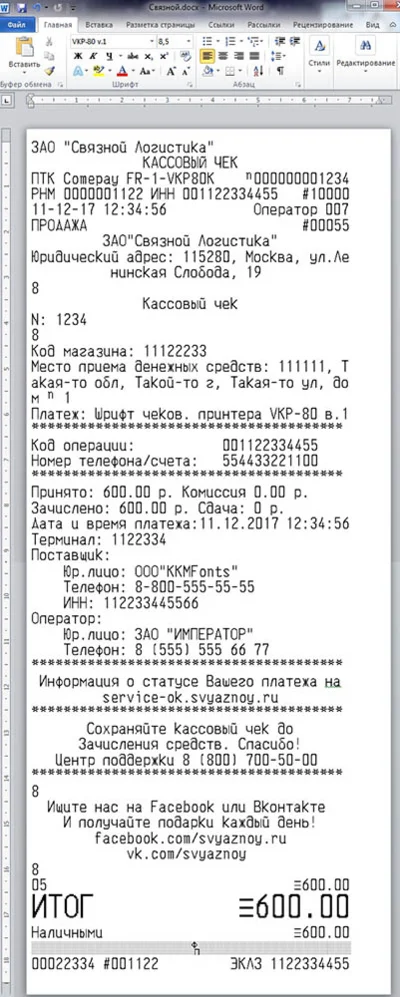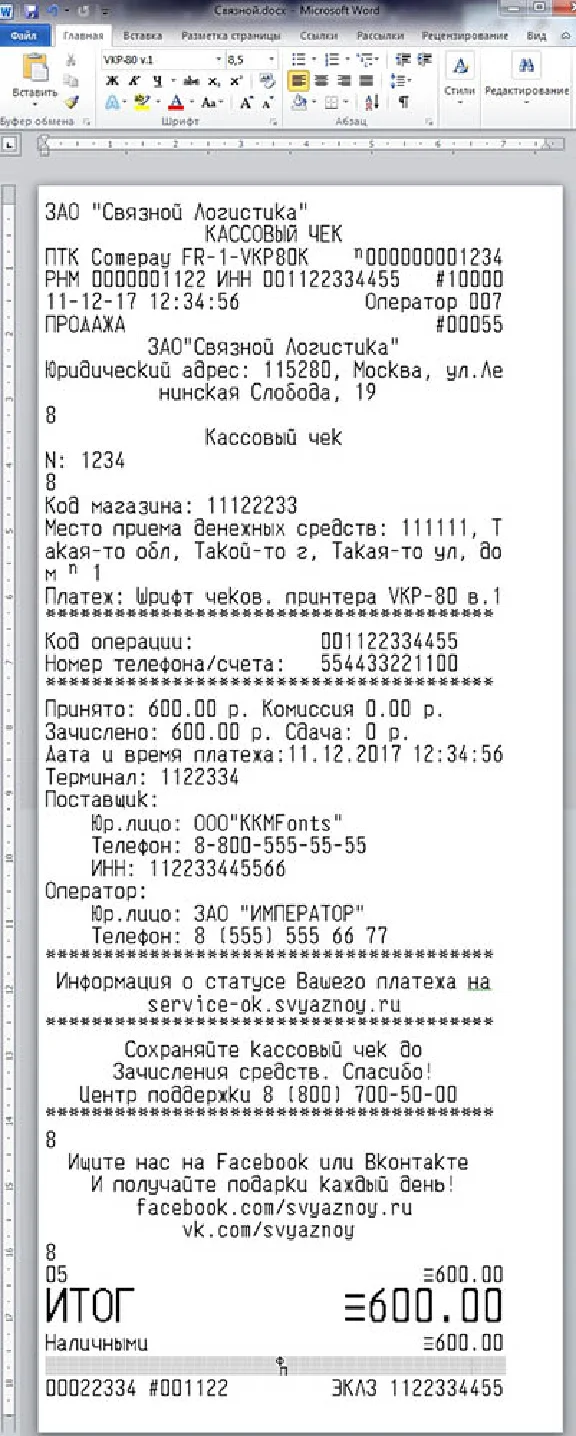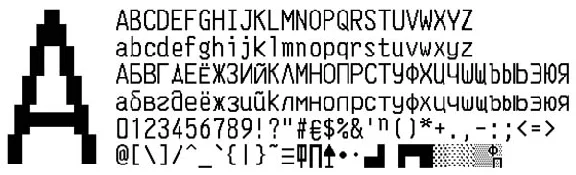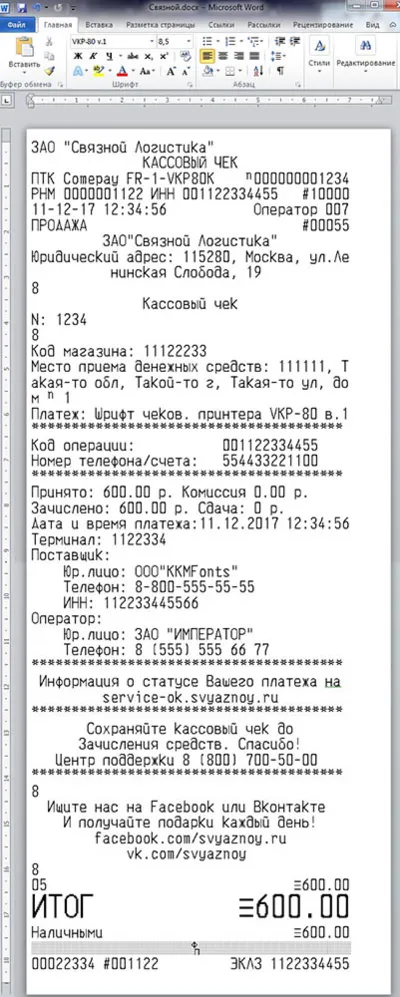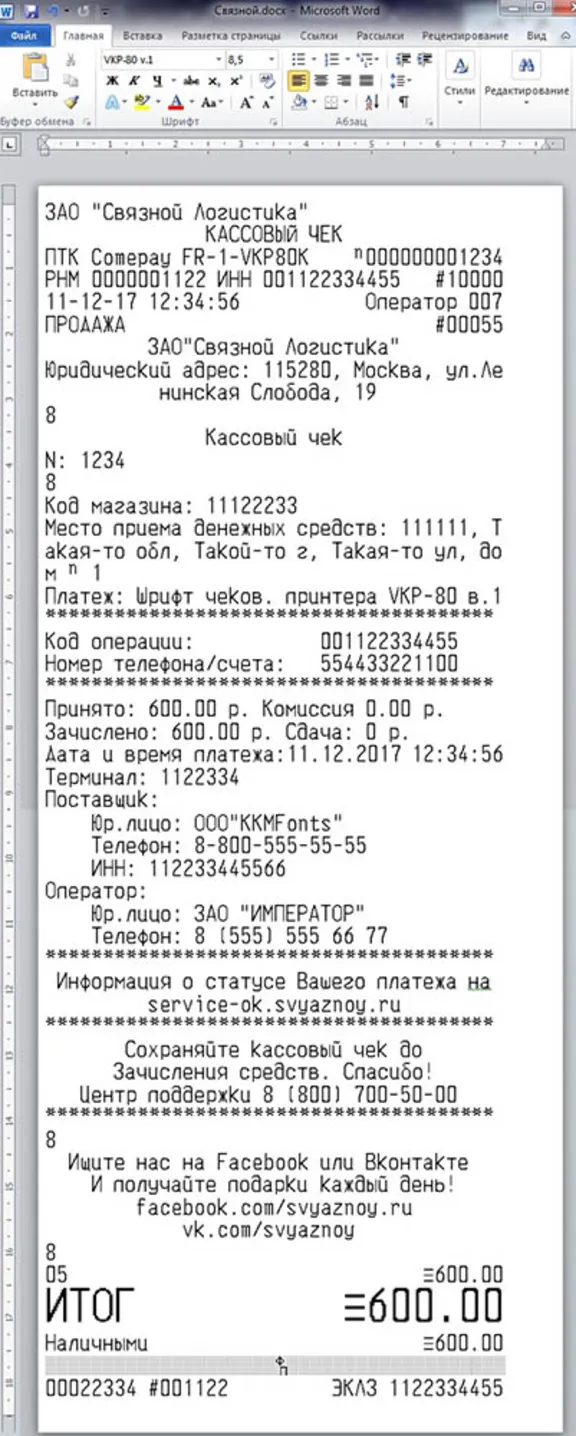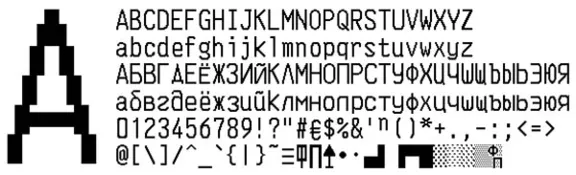
Check printer font VKP-80 v.1, which is installed in many payment terminals, in particular SVYAZNOY in OTF format (Russian and English letters) for use in Microsoft Word. The archive contains font in OTF format and a check pattern. You just need to install the font in the system (usually C: \ WINDOWS \ Fonts), open the template and start editing.